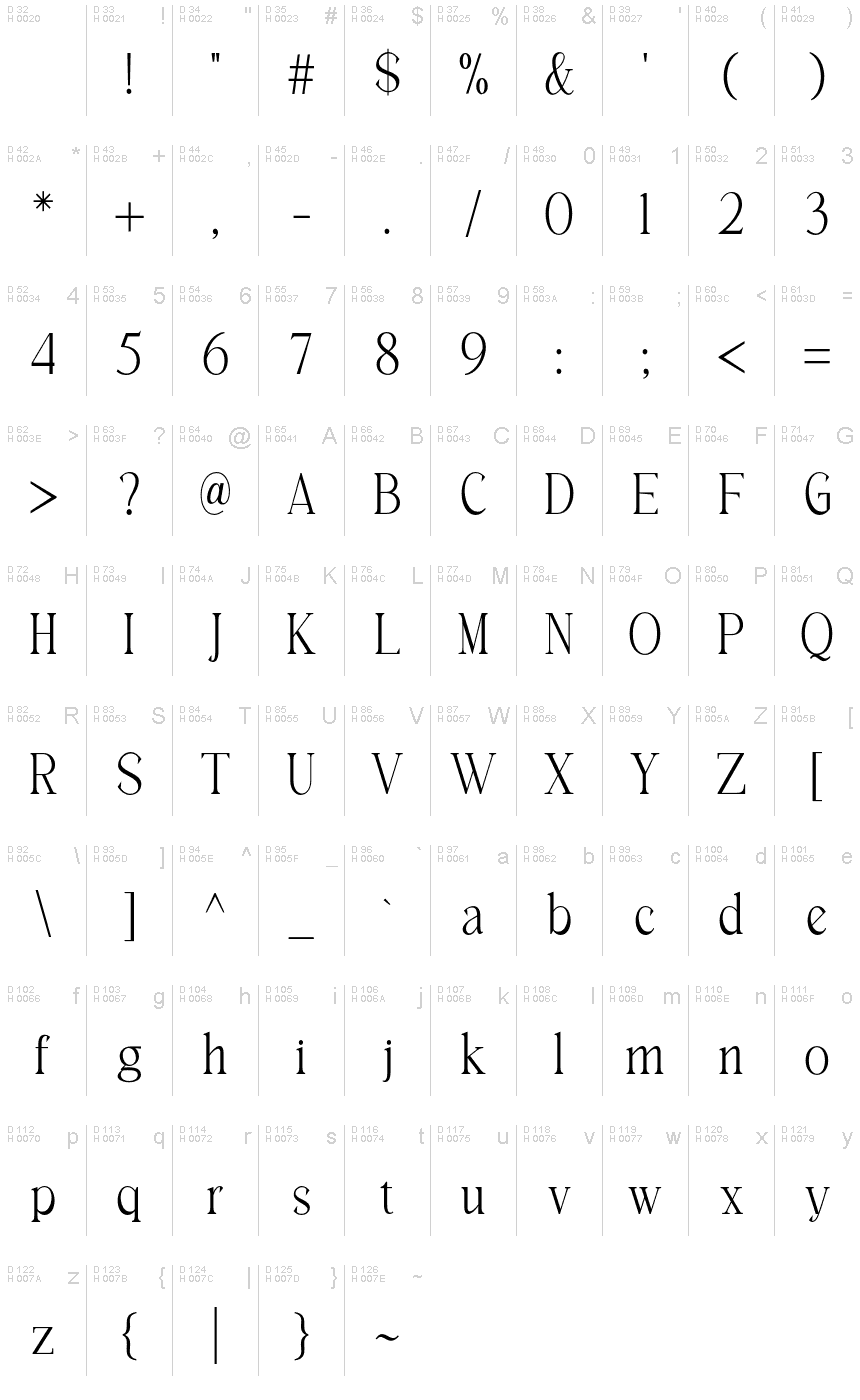
BreastoDisplay
Breasto Display, designed by Tebaltipis Studio, is a captivating serif font that exudes elegance and sophistication. With its semi-light weight and semi-condensed width, it offers a unique blend of readability and compactness.
This versatile typeface is suitable for a wide range of projects, including editorial designs and branding materials that require a touch of refinement. Whether it's a fashion magazine spread or an upscale restaurant menu, Breasto Display effortlessly adds a touch of class to any project.
Elevate your design with this exquisite font that is sure to make a lasting impression.